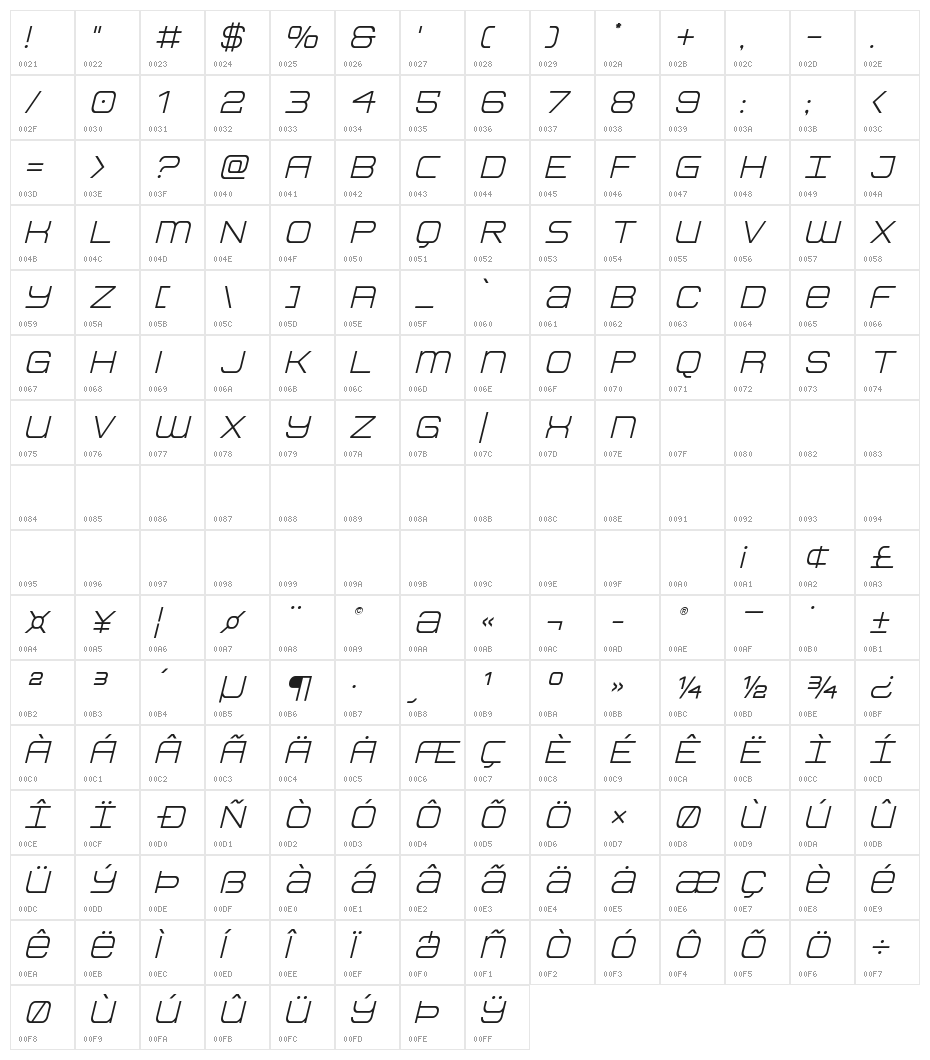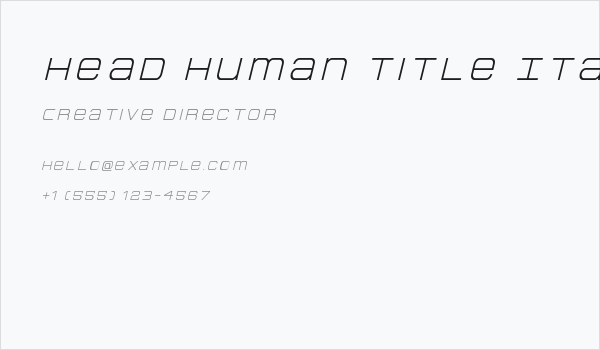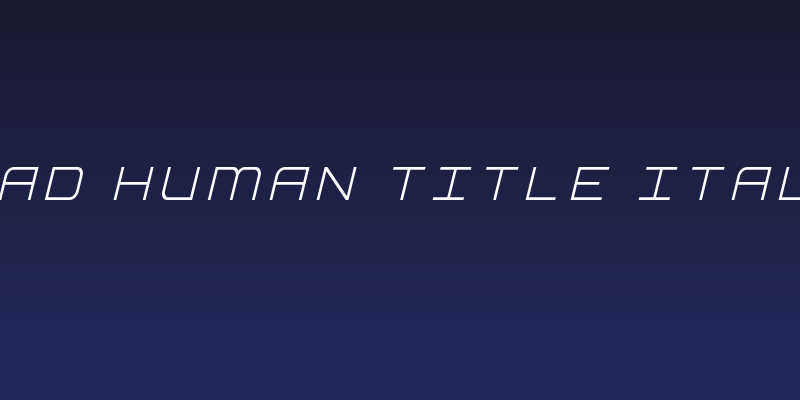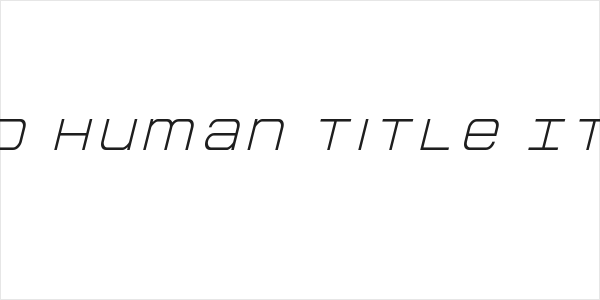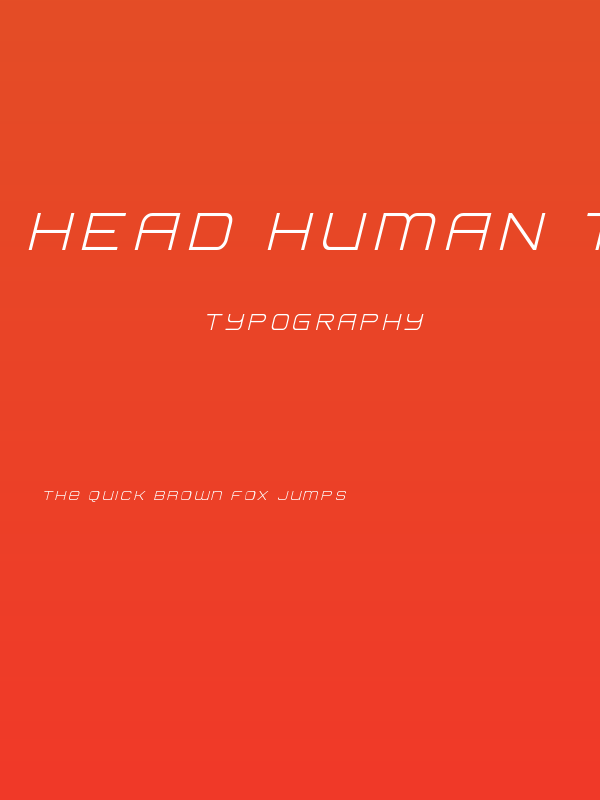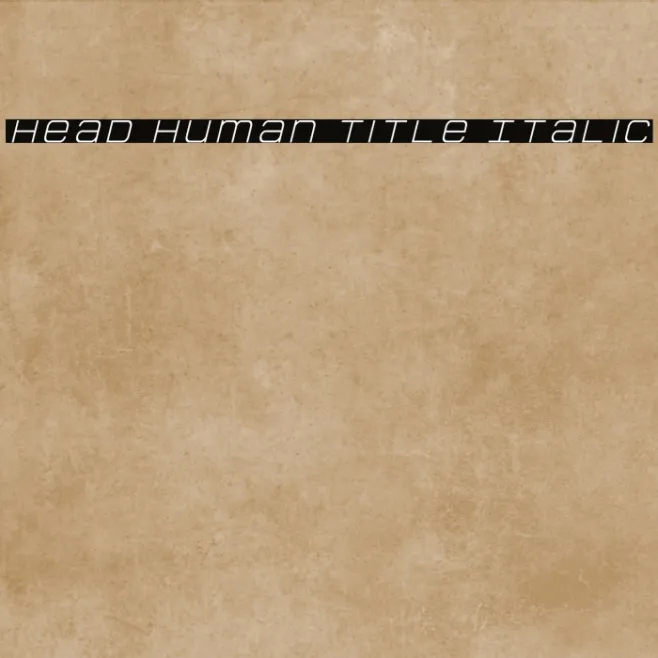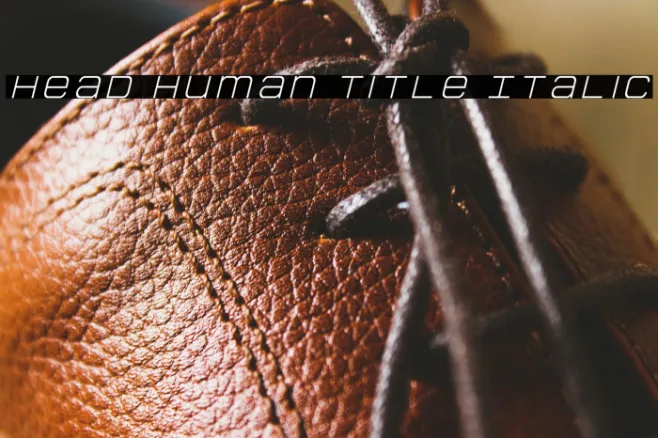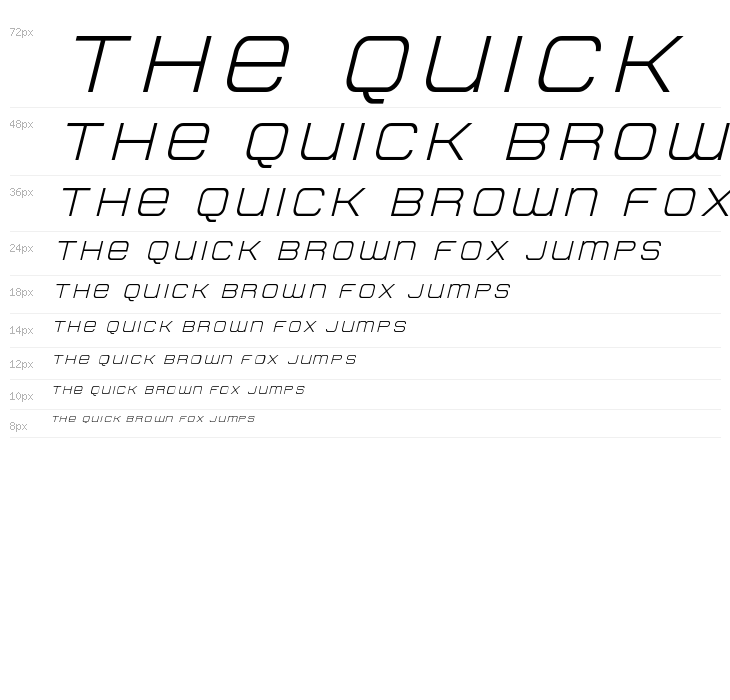
Head Human Title Italic Font
Head Human Title Italic Description
This font features a sleek, modern design with a distinct italic slant, giving it a dynamic and forward-moving appearance. The characters are constructed with clean, geometric lines, offering a futuristic and technical feel. The uppercase and lowercase letters maintain a consistent style, with rounded edges and uniform stroke widths that contribute to its streamlined look. The numerals and special characters are designed to match the overall aesthetic, ensuring a cohesive appearance across all text. This font's minimalistic and contemporary design makes it suitable for a variety of applications where a modern and professional look is desired.